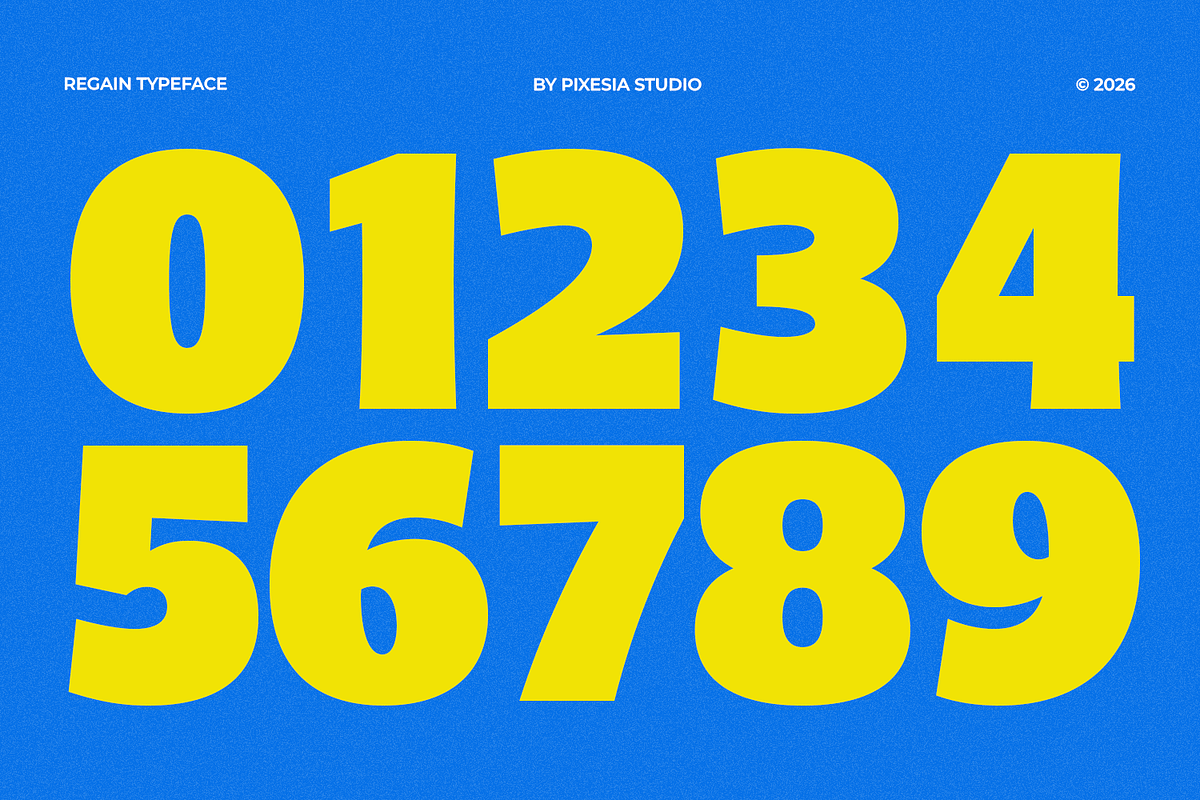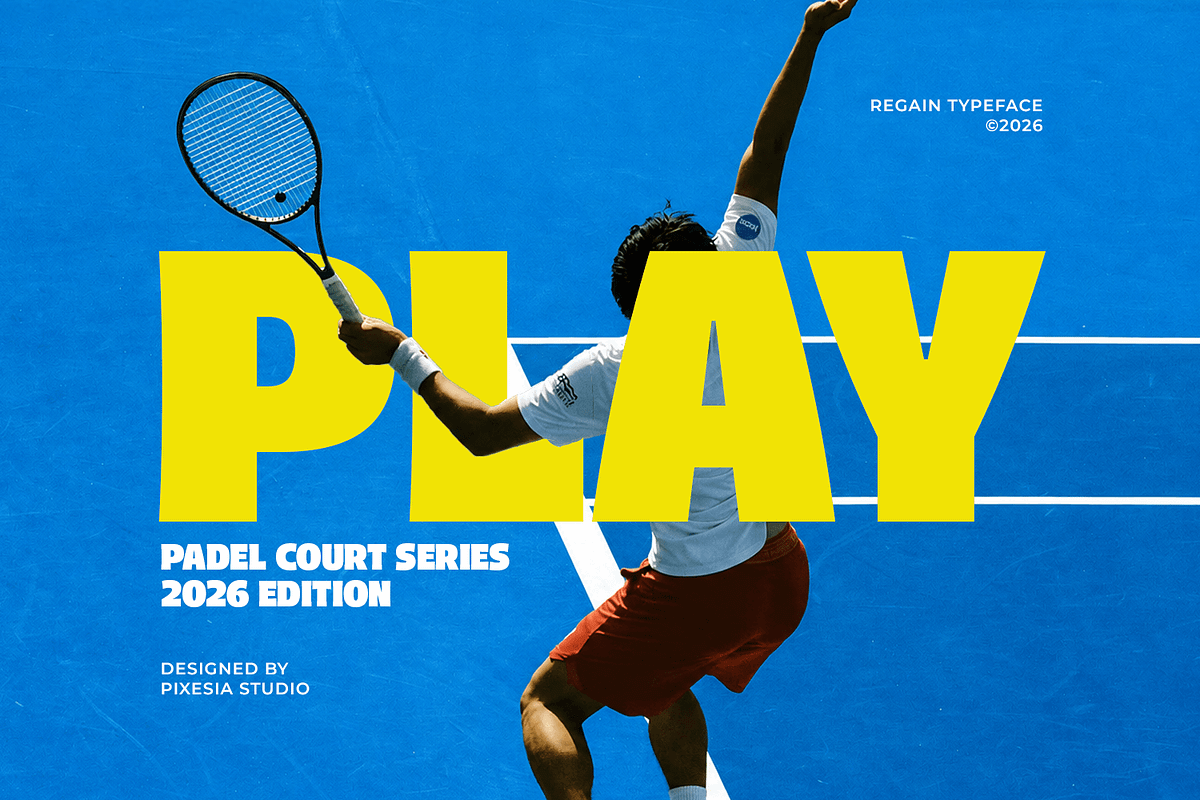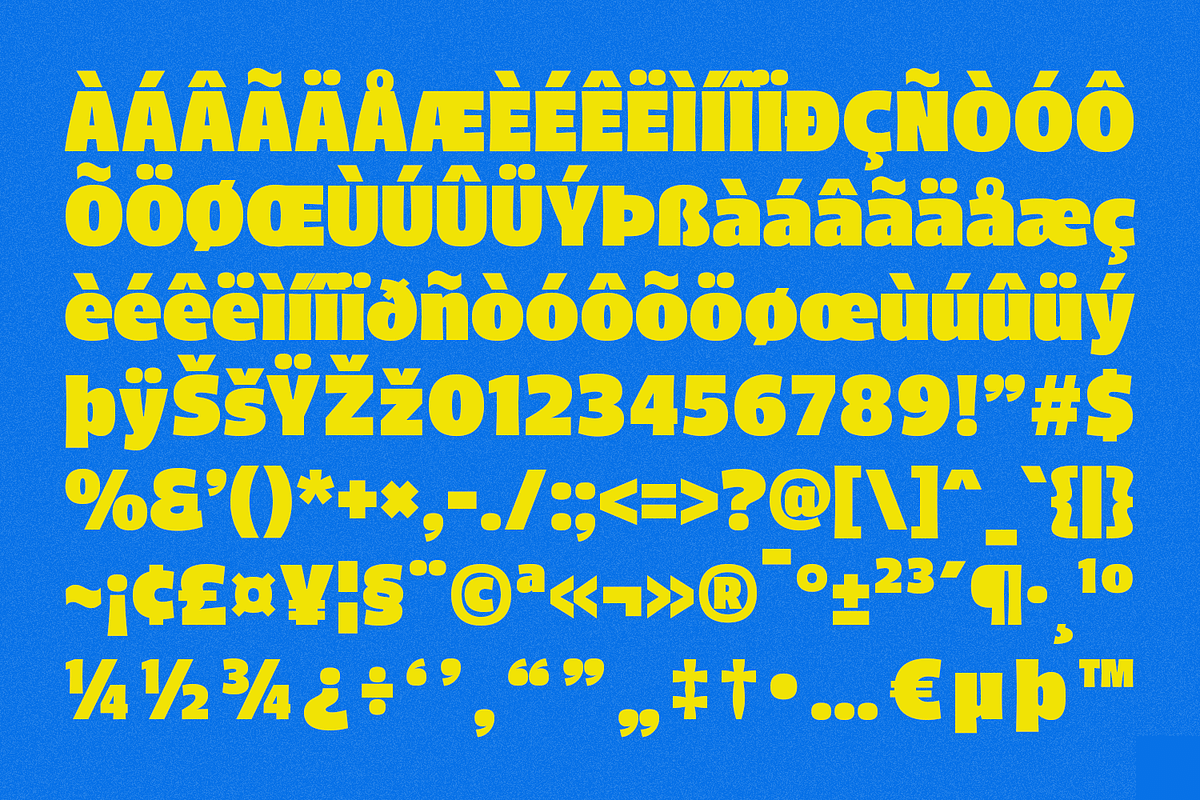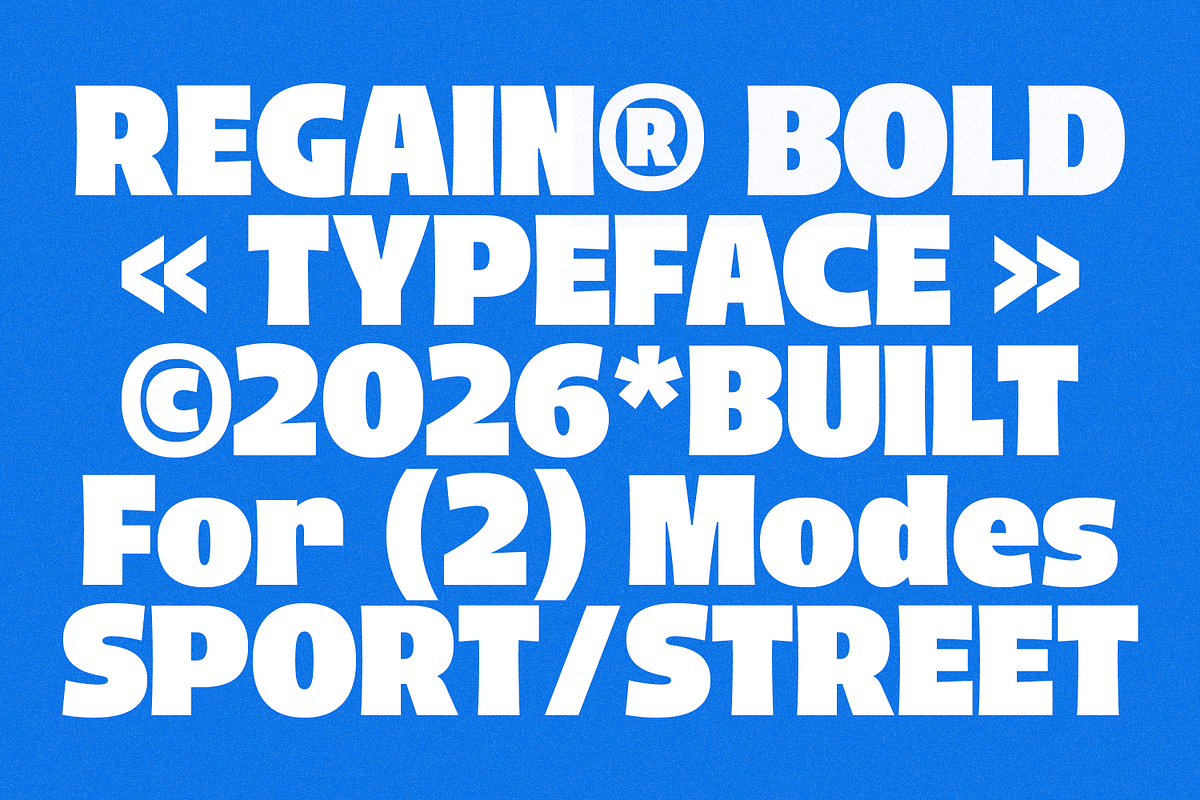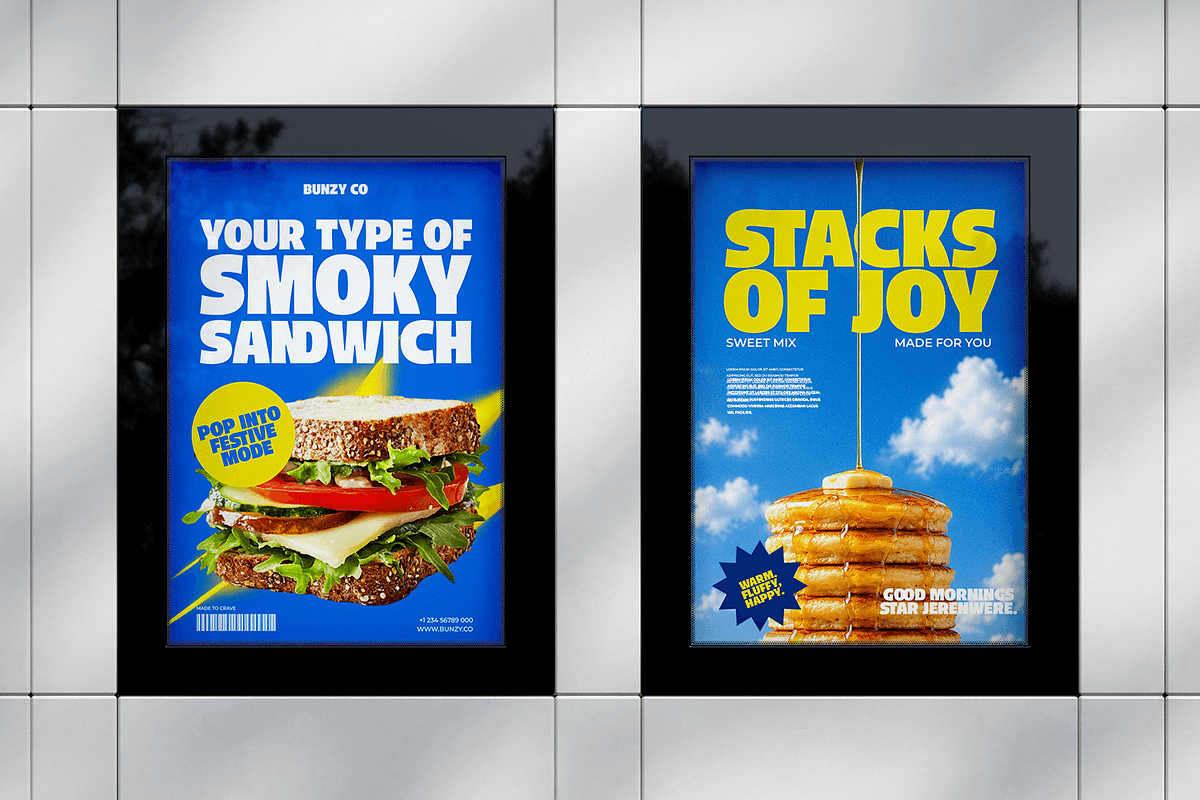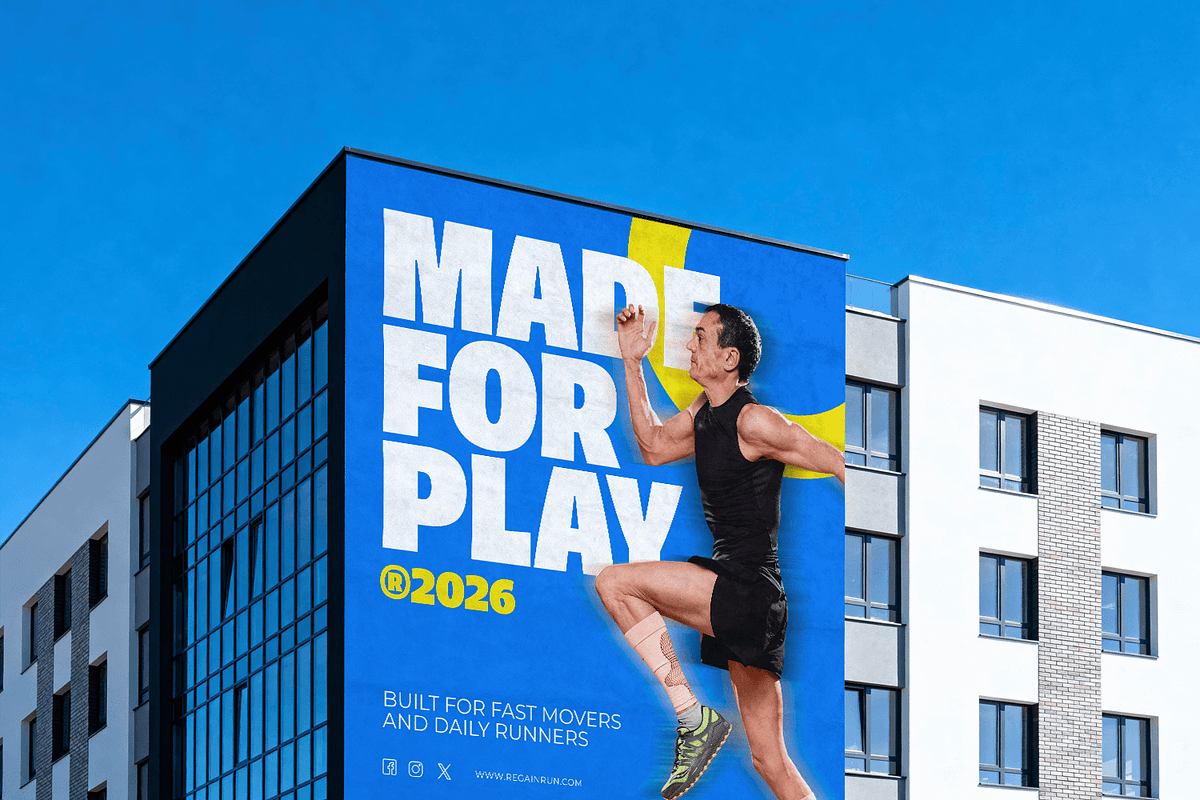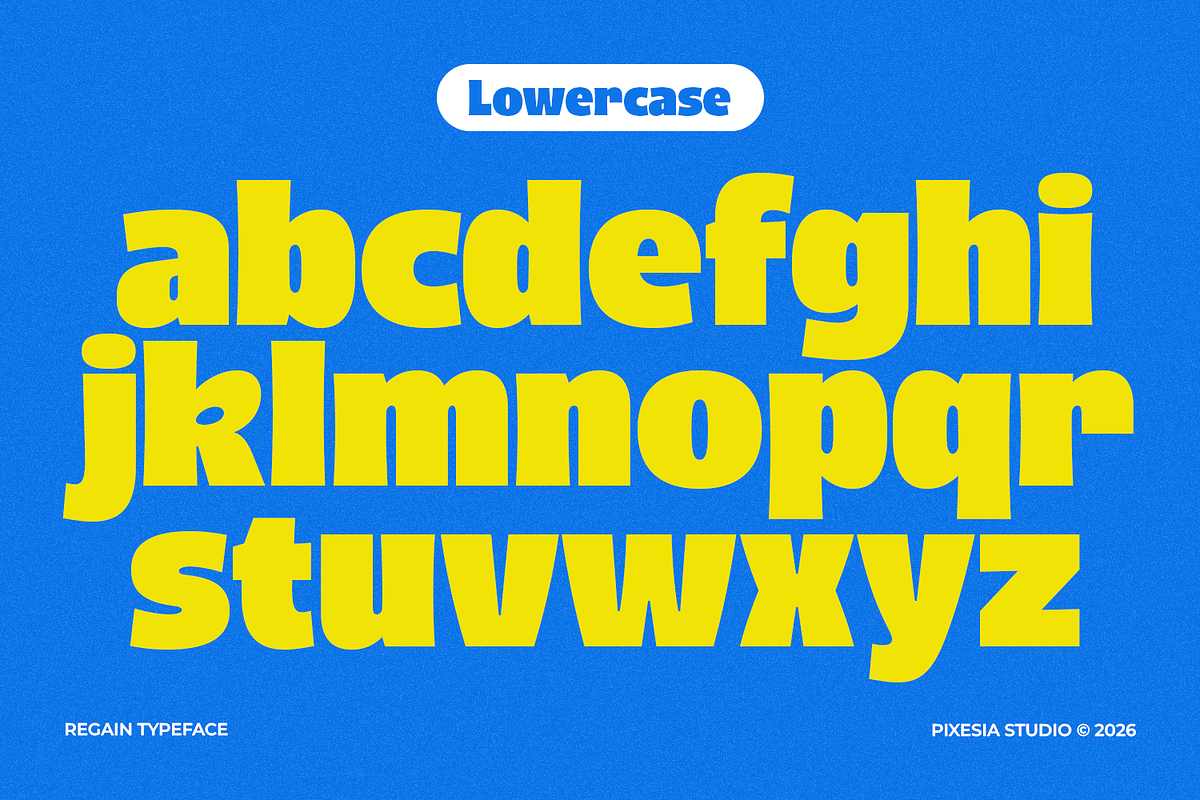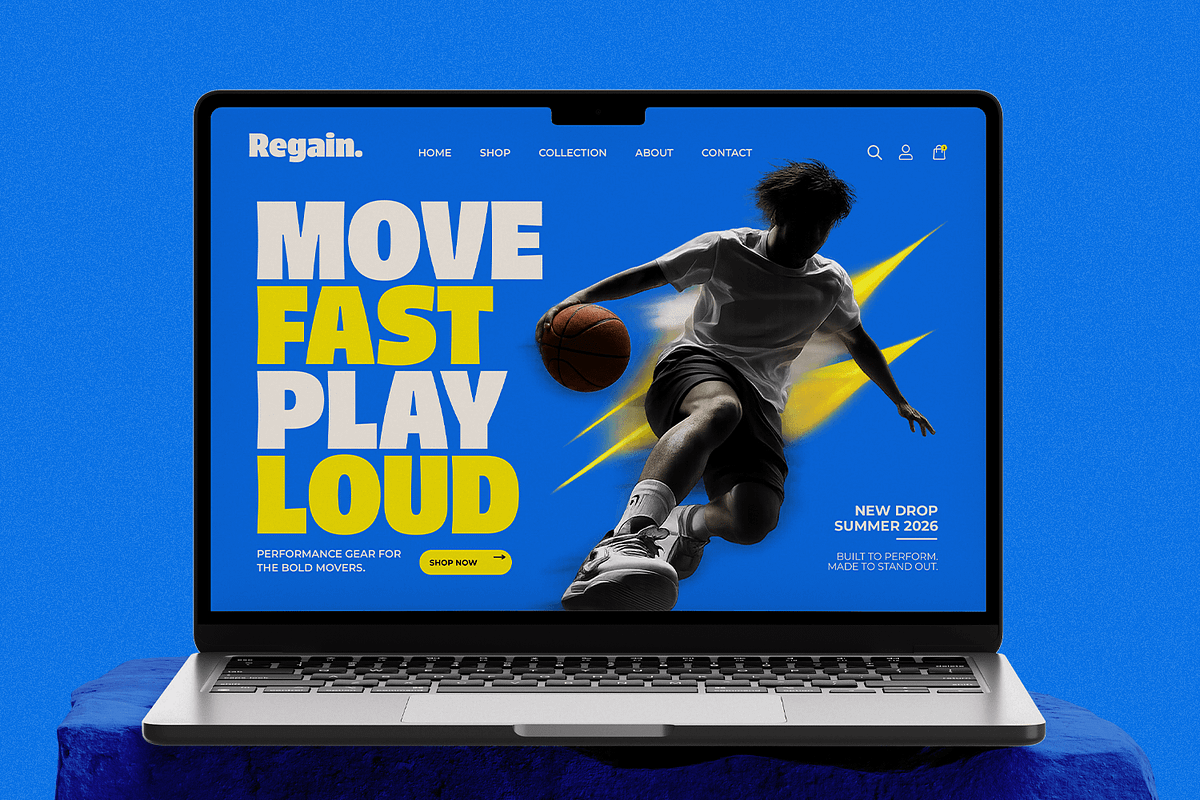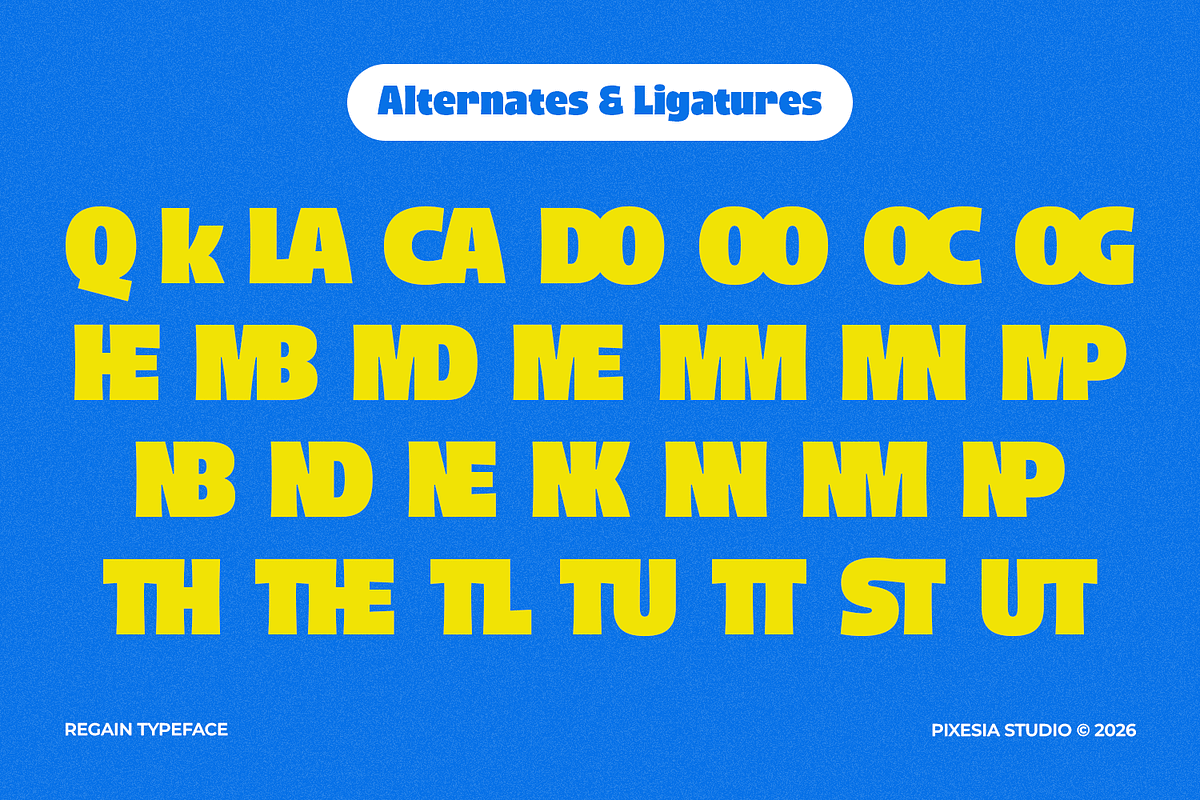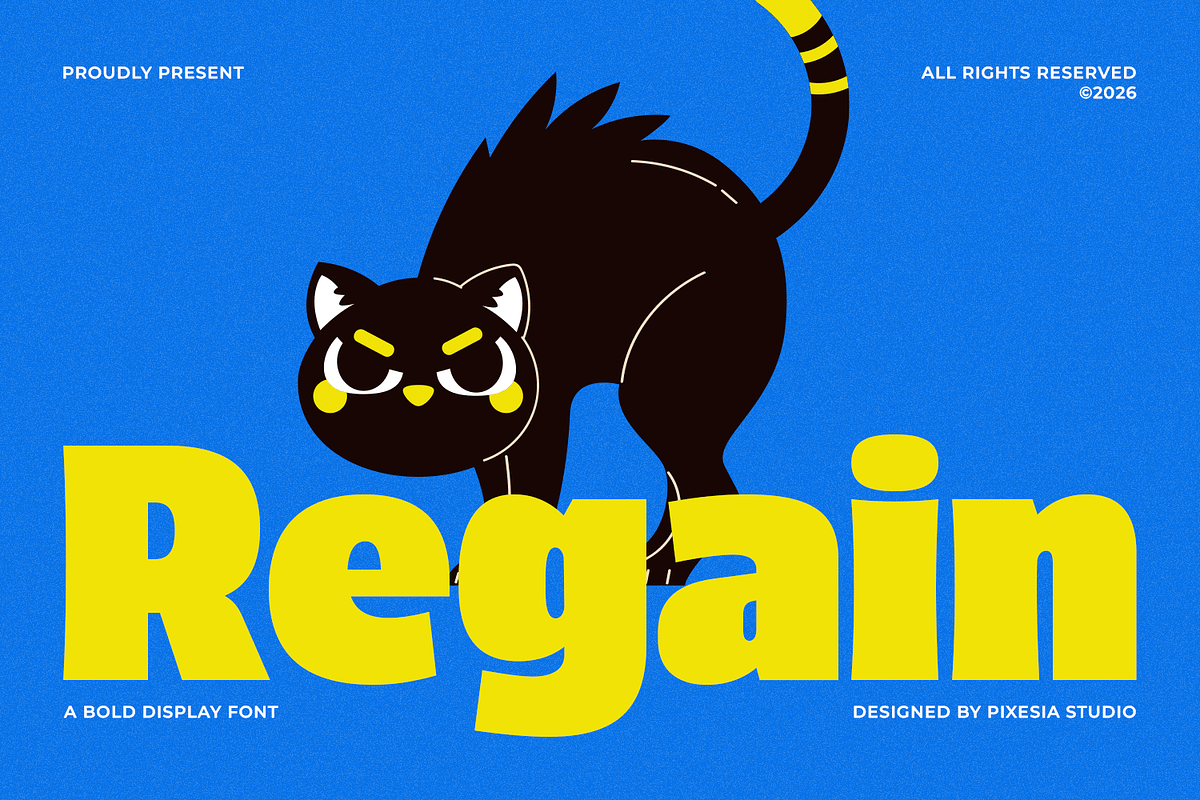
Regain - Bold Display Font
Introducing Regain - Bold Display Font
Regain is a bold display typeface designed to bring playful energy, confidence, and eye-catching impact to creative projects. Featuring chunky letterforms, dynamic proportions, and a distinctive retro-inspired personality, this font blends nostalgic cartoon aesthetics with modern display typography. Its expressive shapes and strong visual presence create a fun and memorable look that instantly captures attention.
Perfect for branding, logos, packaging, posters, children's products, merchandise, social media graphics, gaming content, and promotional materials, Regain delivers a bold and engaging character. Whether you're building a vibrant brand identity or creating attention-grabbing headlines, this typeface provides the perfect combination of creativity, readability, and visual impact.
Multilingual Support including Afrikaans, Albanian, Basque, Catalan, Danish, Dutch, English, Estonian, Faroese, Filipino, Finnish, French, Galician, German, Icelandic, Indonesian, Irish, Italian, Malay, Norwegian Bokmål, Portuguese, Spanish, Swahili, Swedish, Zulu